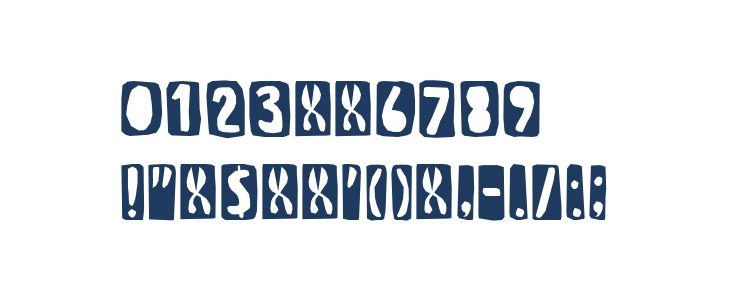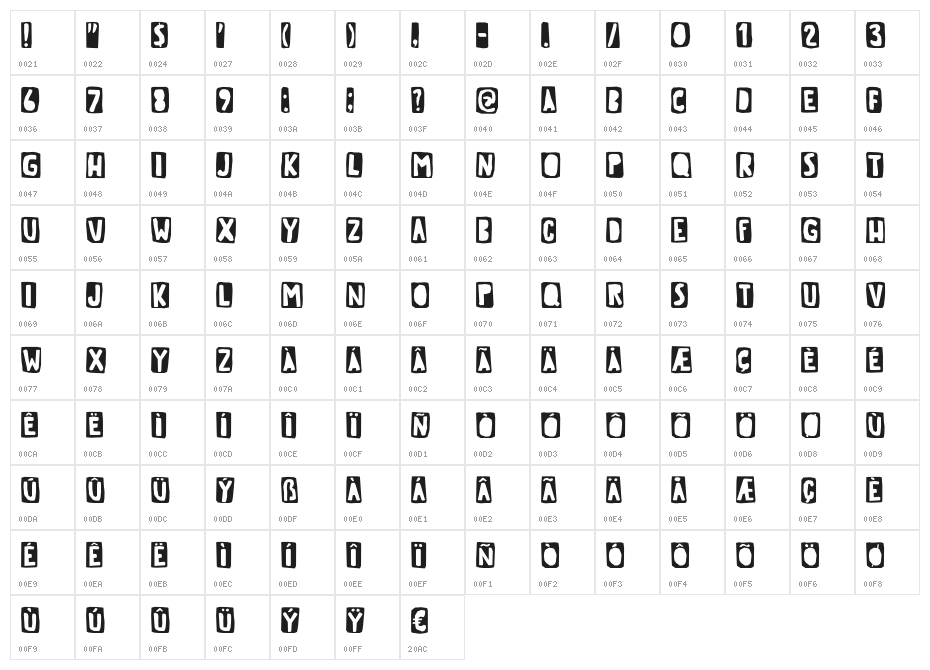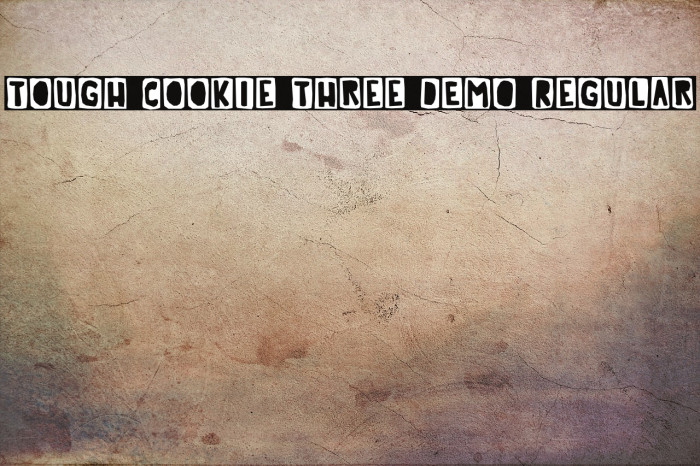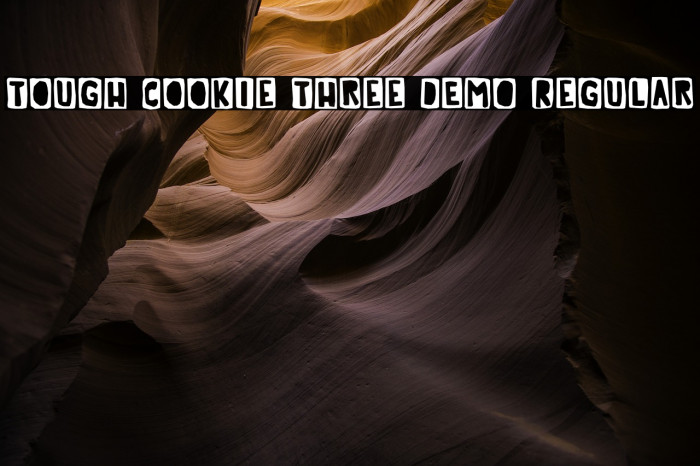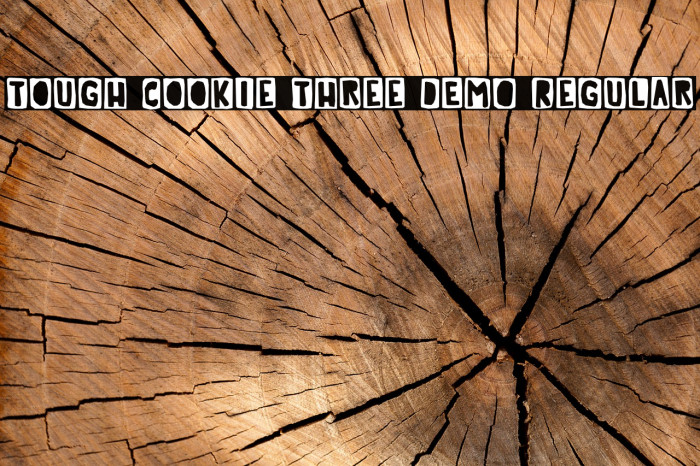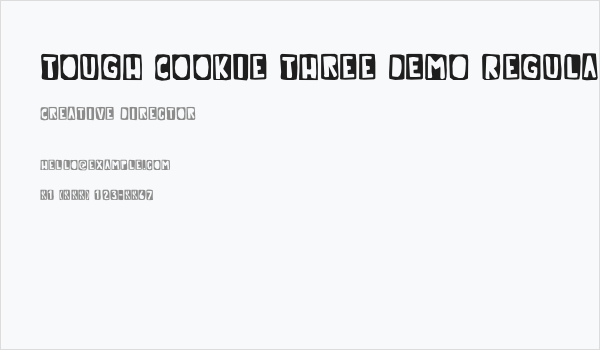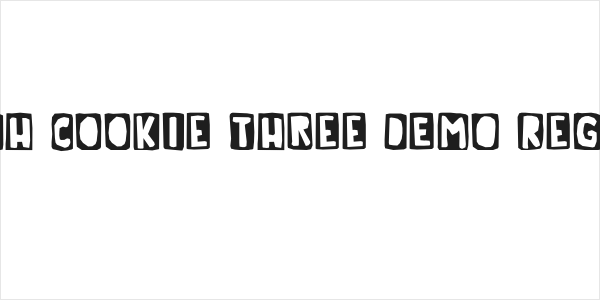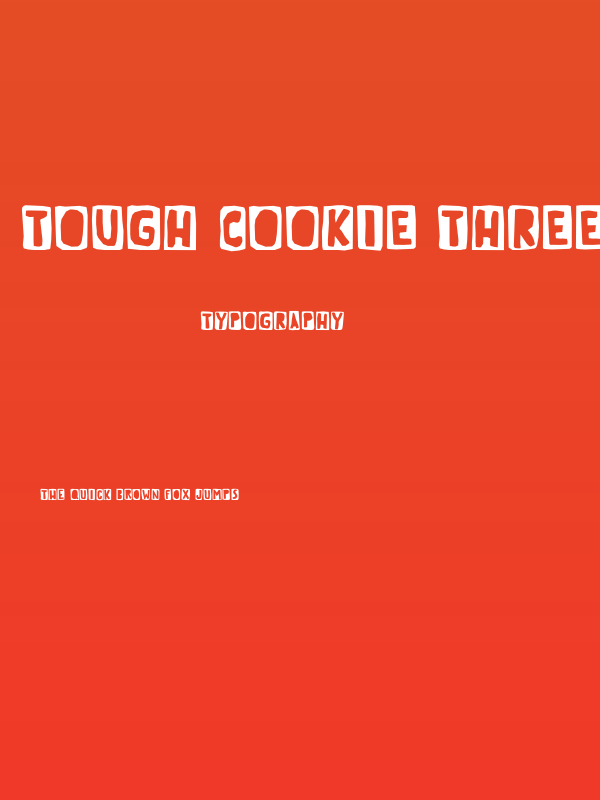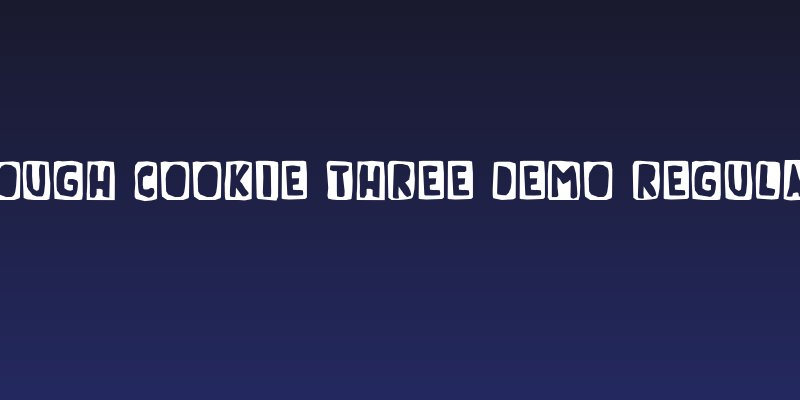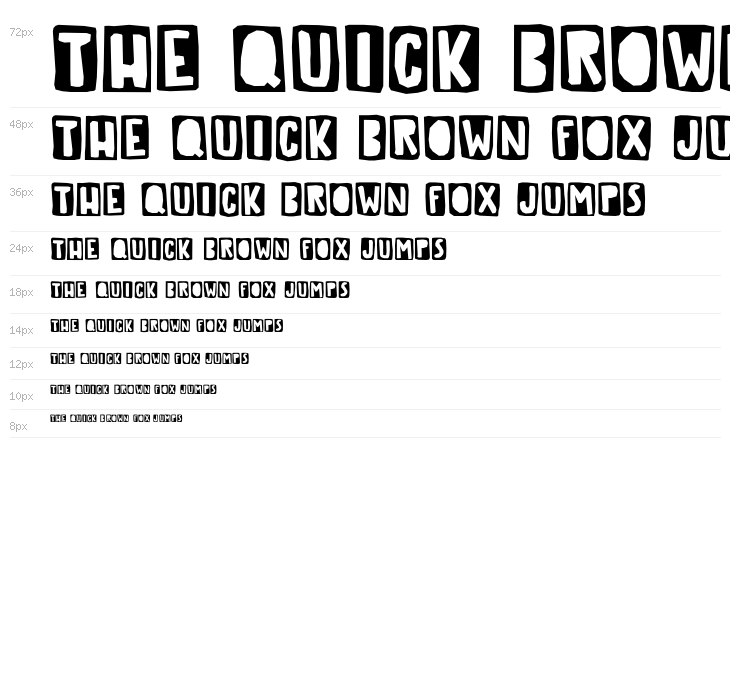
Tough Cookie Three DEMO Regular Font
Tough Cookie Three DEMO Regular Description
This font features a bold and playful design with a hand-drawn aesthetic. Each character is enclosed in a boxy shape, giving it a unique, almost cut-out appearance. The letters are uppercase and lowercase, with numbers and a selection of special characters. The style is reminiscent of a blocky, cartoonish look, making it ideal for projects that require a fun and informal touch. The irregular edges and varying thickness of the strokes add to its quirky charm, making it stand out in any design. This font is perfect for creative projects that aim to capture attention with its distinctive and lively appearance.
| Overall Style | Playful, Cartoonish, Hand-drawn |
| Use Case | Headlines, Posters, Branding |
| Proposed Projects | Ideal for children's books, comic strips, playful branding, and eye-catching posters. |